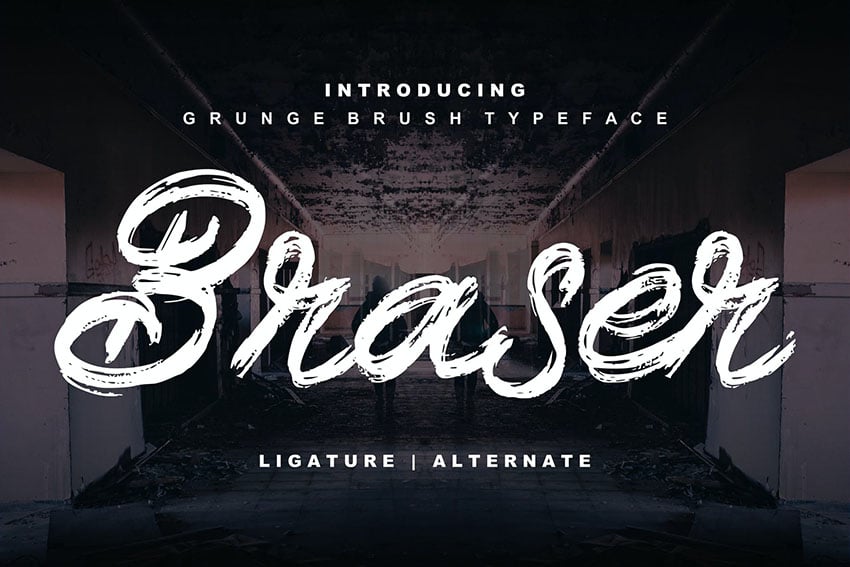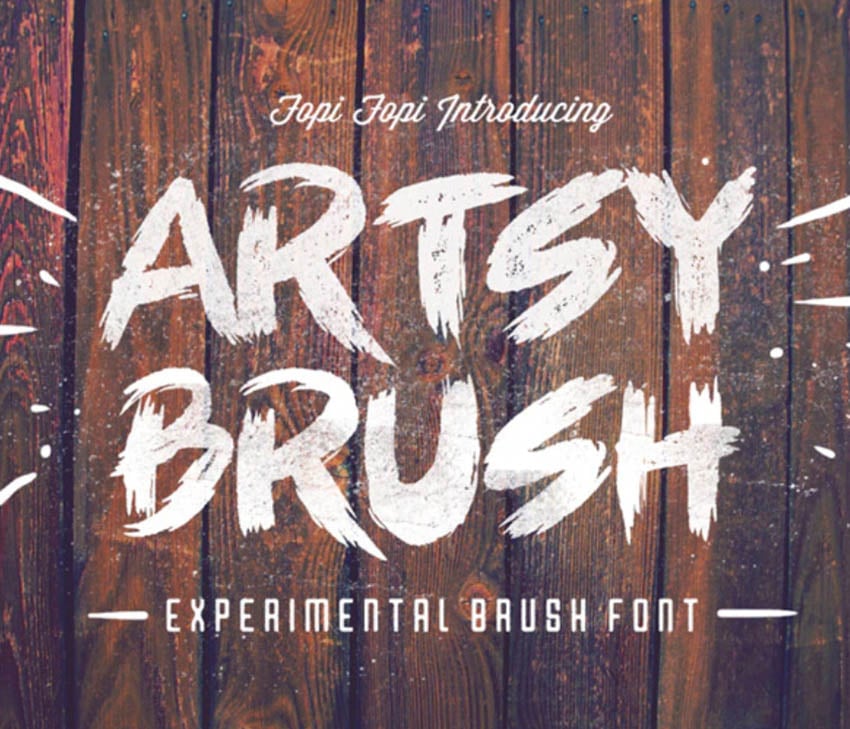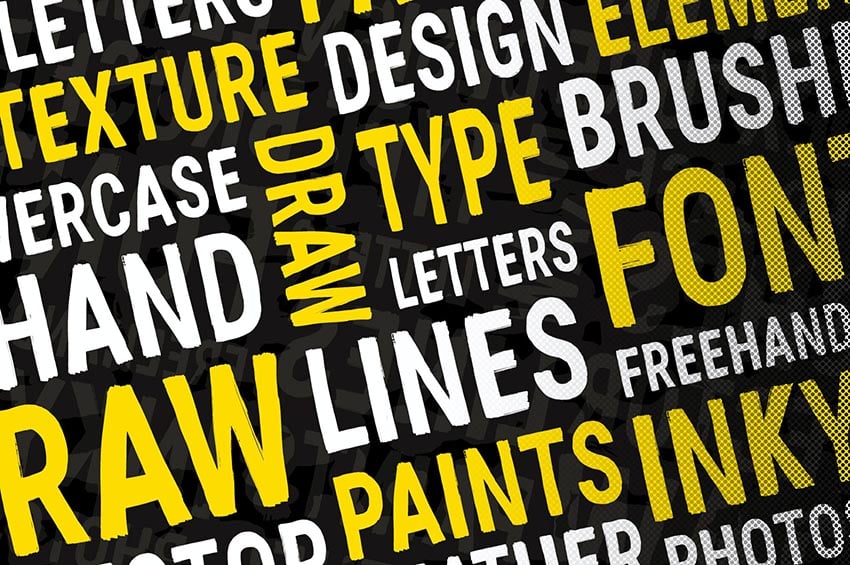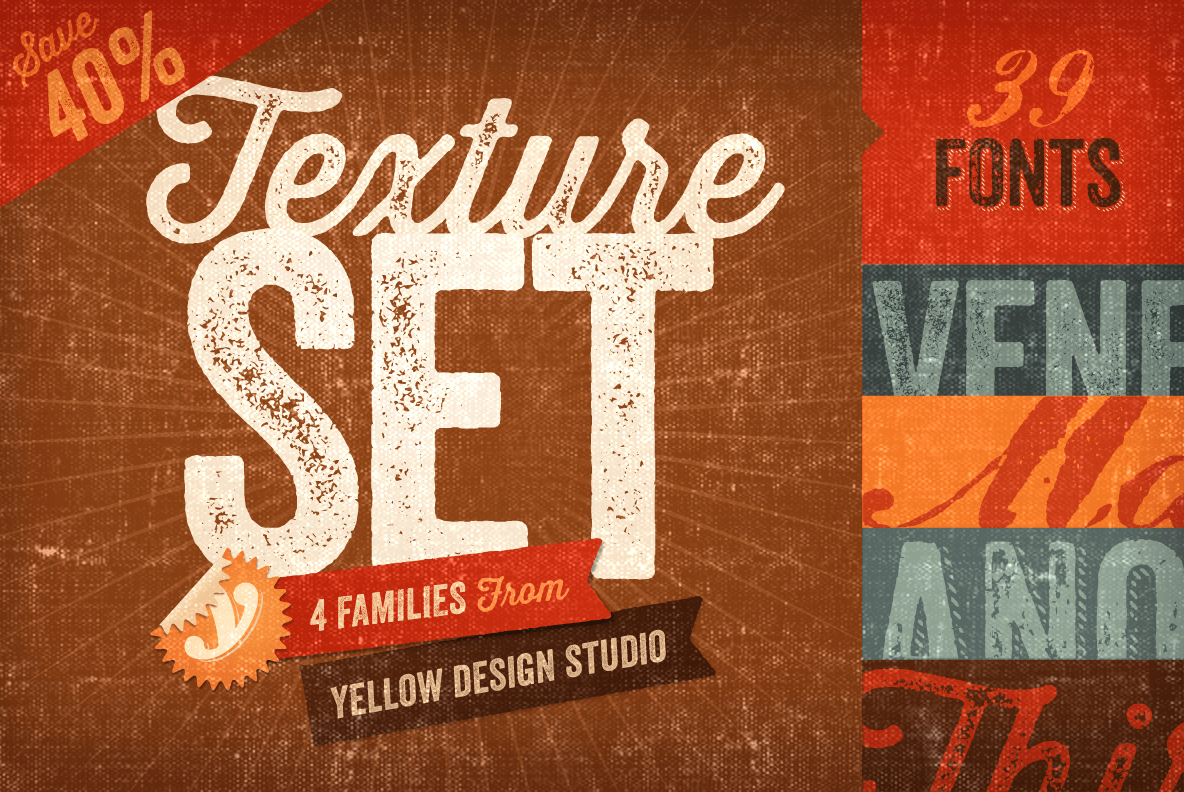
The Best Textured Fonts References
Check Our Selection Of Textured Fonts For Logo Design, Invitations, Posters Or Cards.
There’s Really No Limit To What You Could Create With Your Textured Font File, So Why Not Play Around With A Variety Of Products And Crafting.
Keep Things Super Light Or Go Bold With This Font Family.
You Can Only Get So Creative.